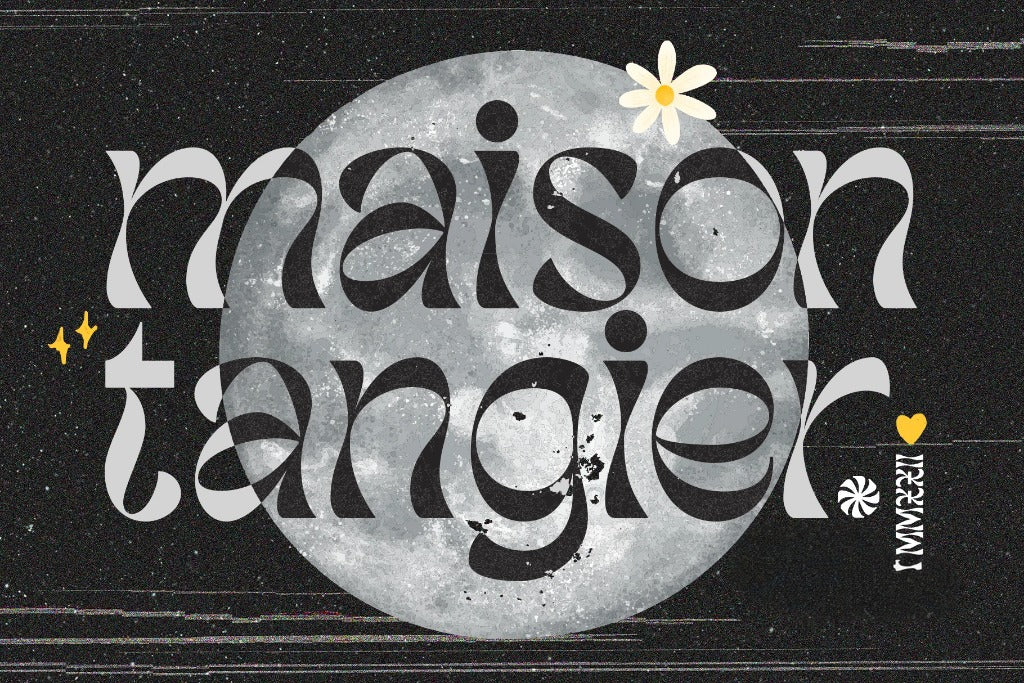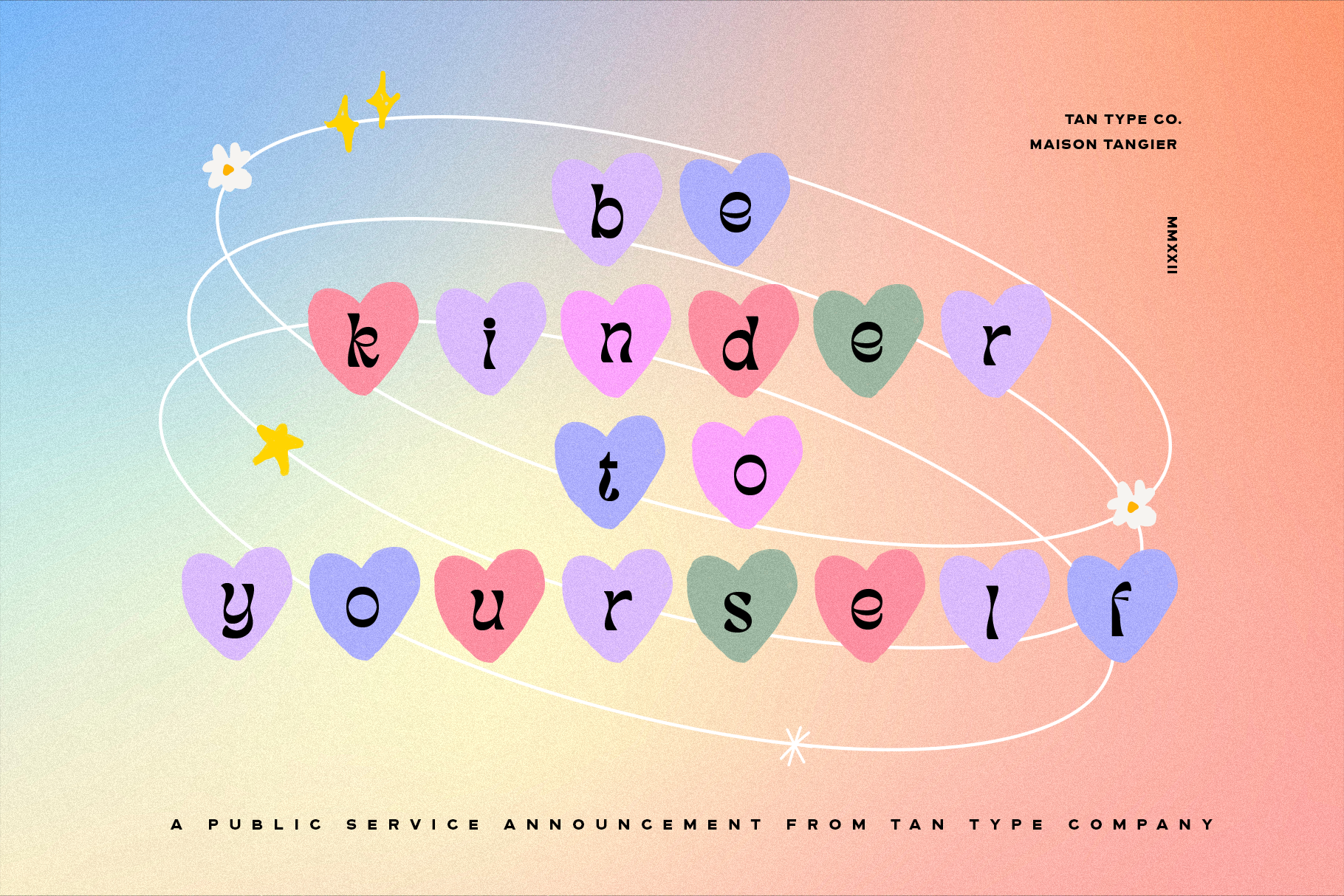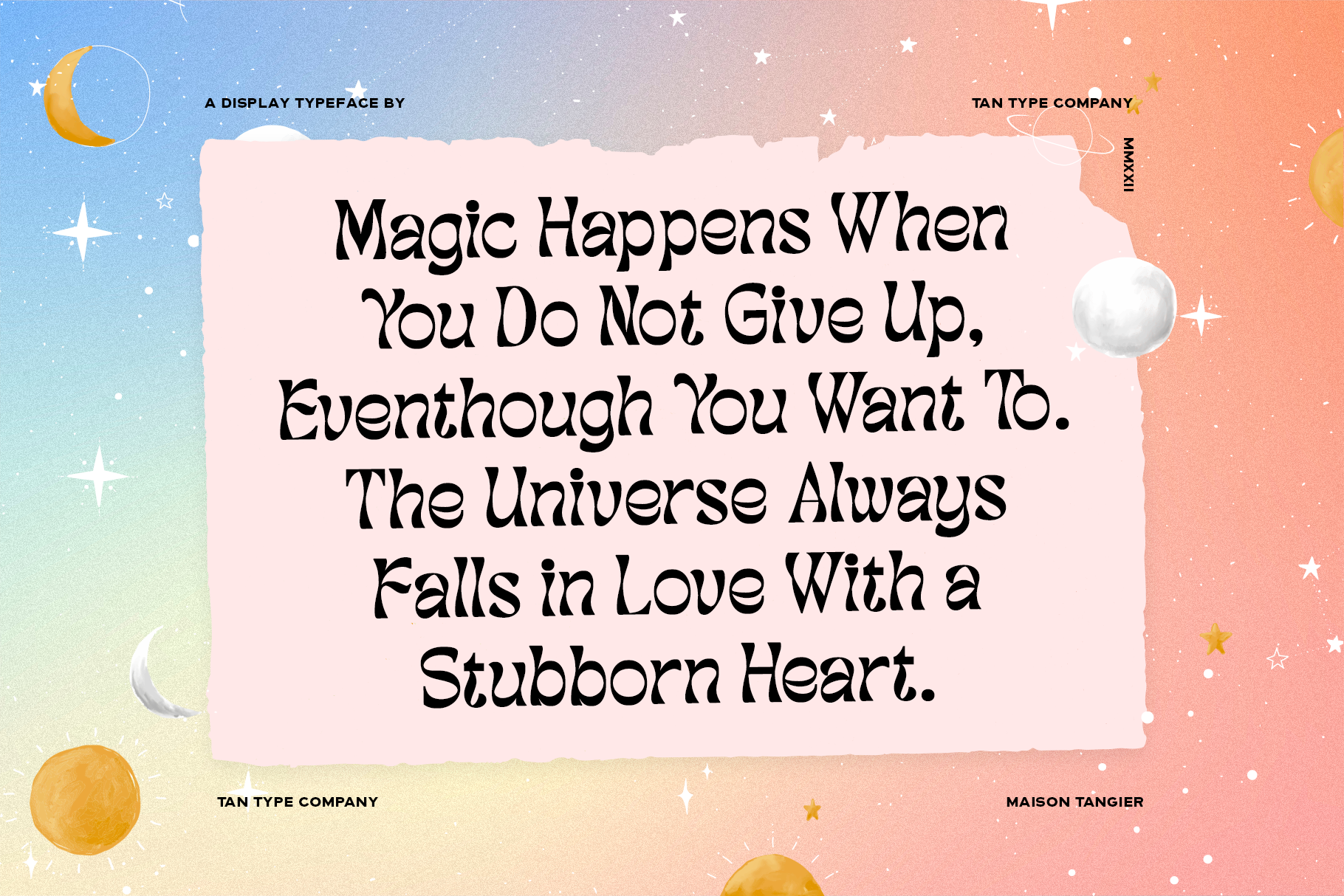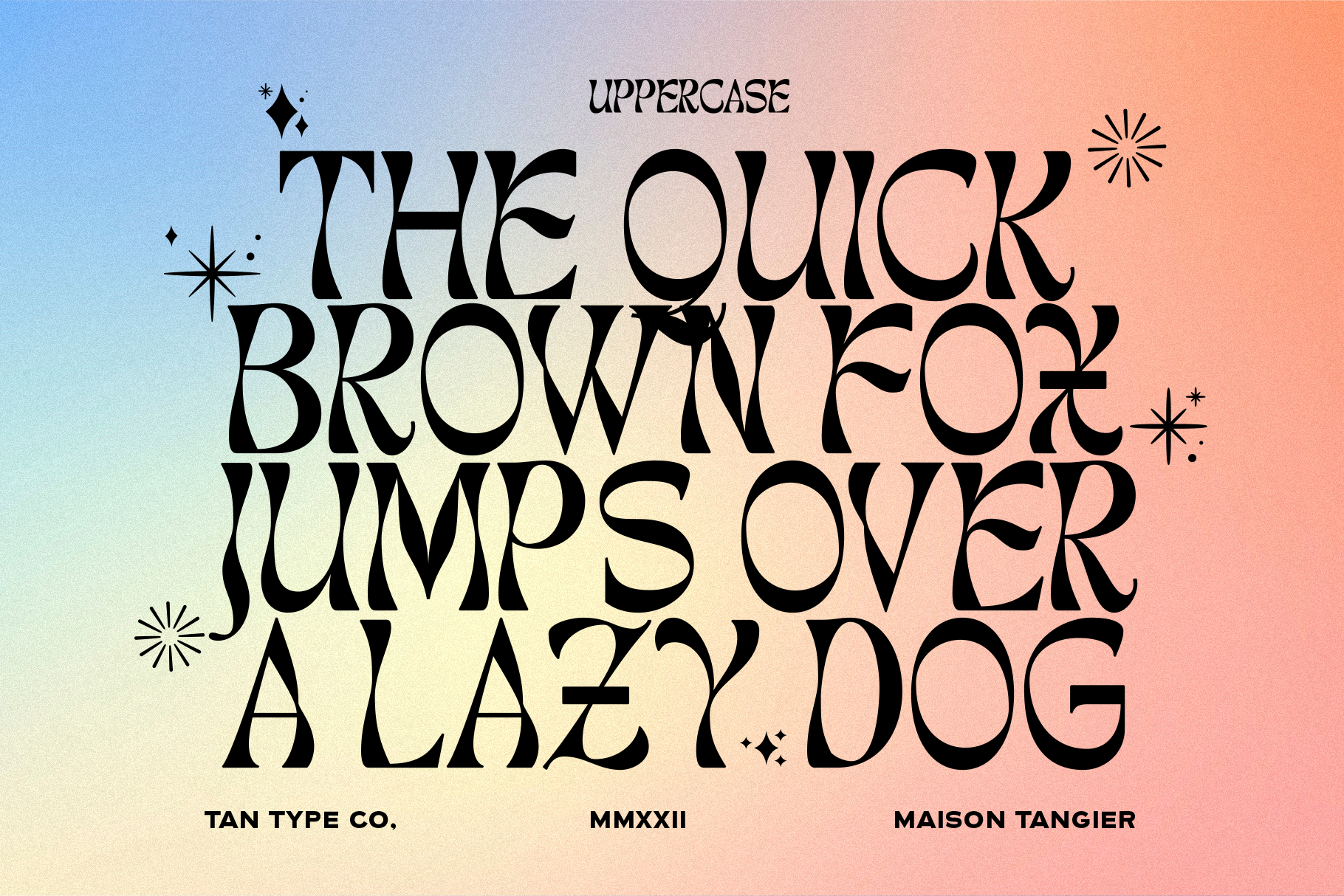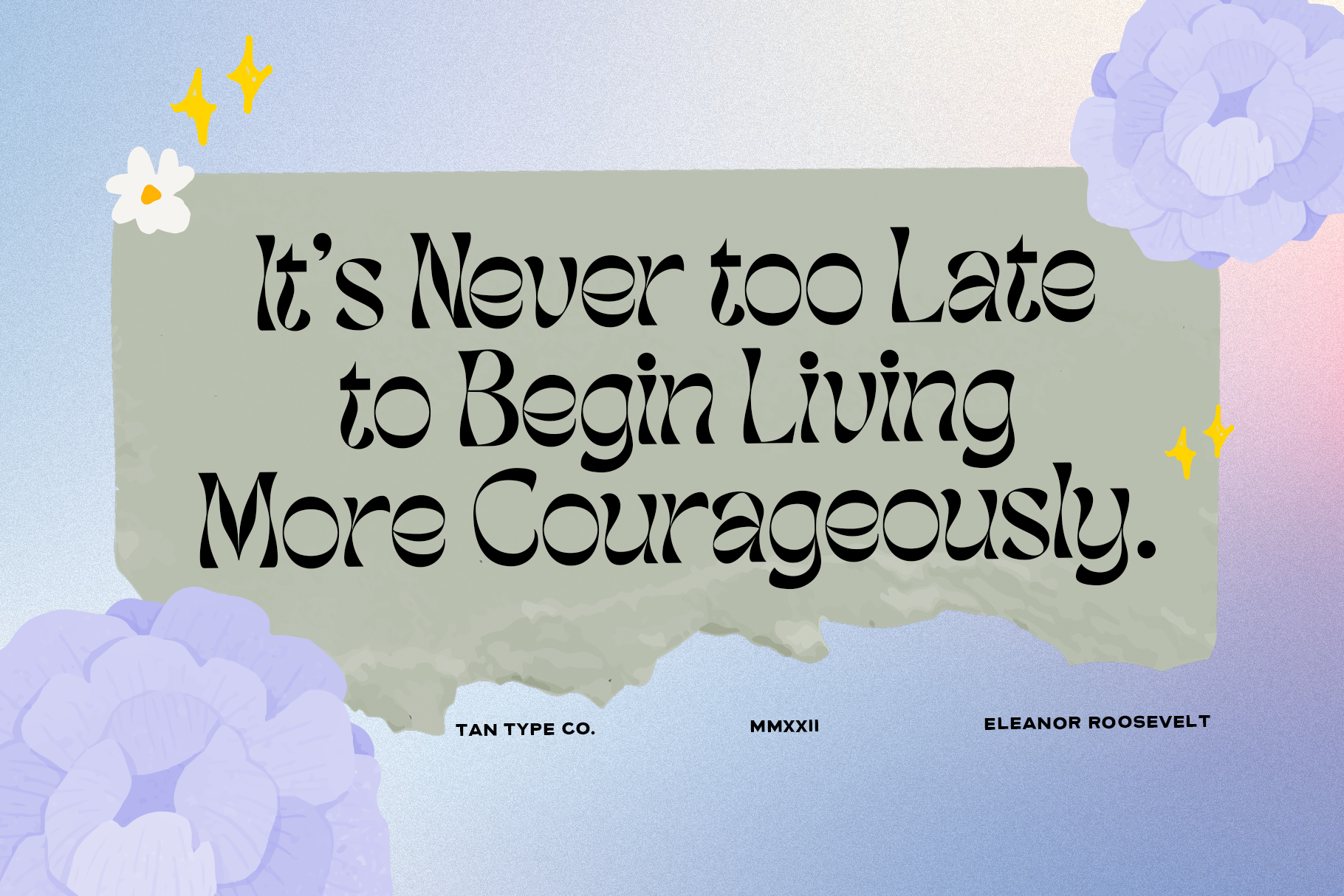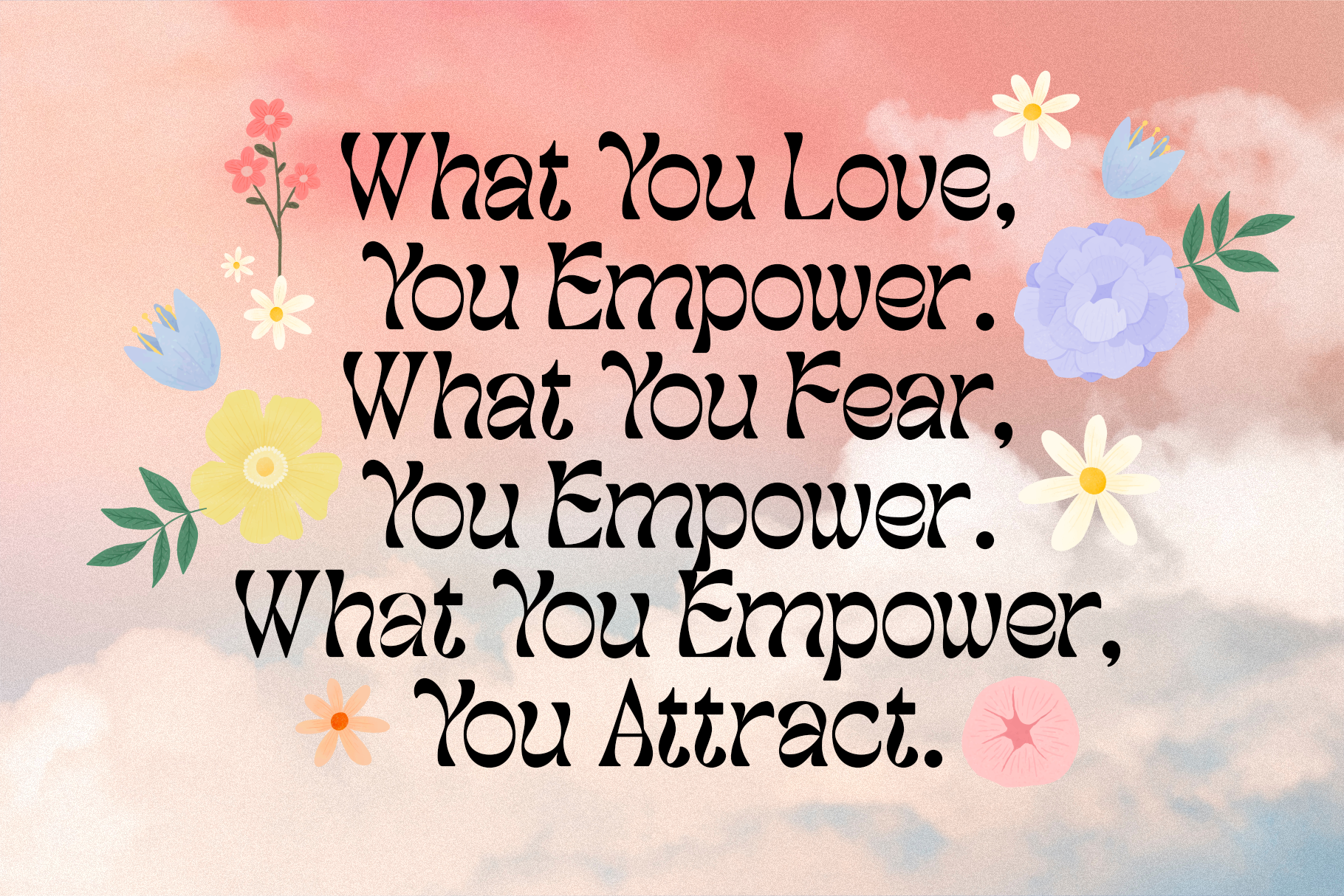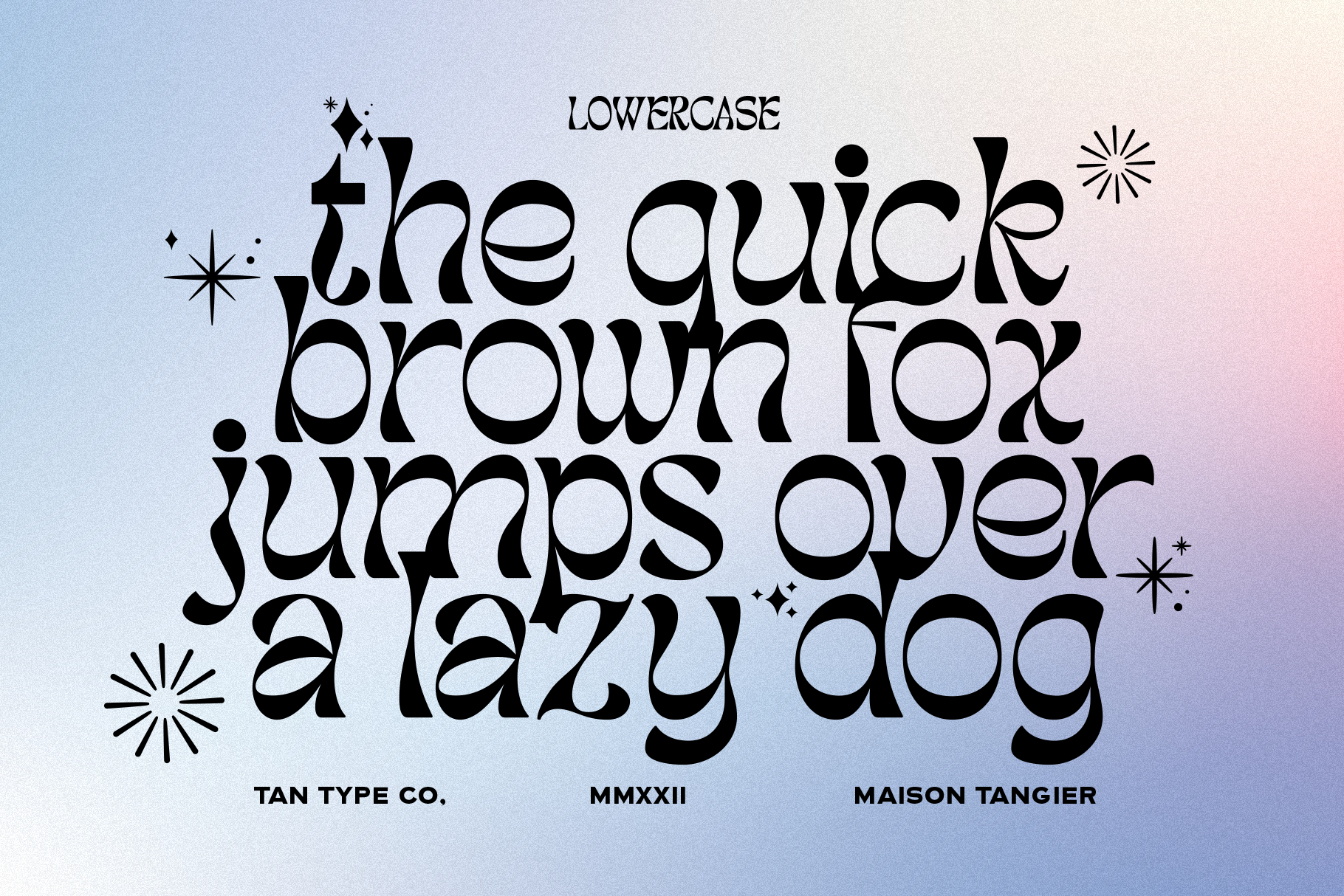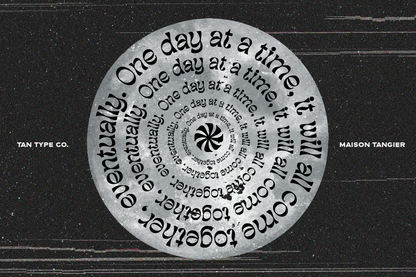
MAISON TANGIER
MAISON TANGIER is a whimsical and stylized display serif typeface with curvy, exaggerated forms and a distinctly retro-futuristic flair. Its dramatic contrast and sculptural shapes bring a touch of surreal elegance, making it a bold typographic statement full of character and charm.